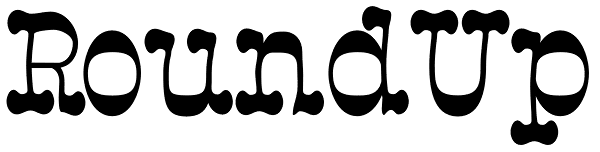
Roundup
The Roundup group was inspired by some of the fonts from the late 19th century, though it is not based on any one of them. Three of the four have reverse contrast, that is, the verticals are thinner than the horizontals. Unlike most of the...
RoundUp Bold
RoundUp
Roundup Caps
Round Up Shadowed